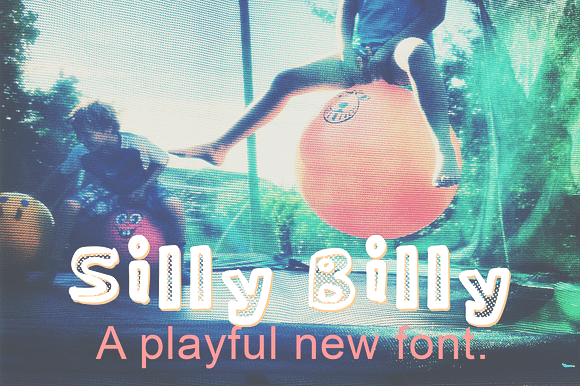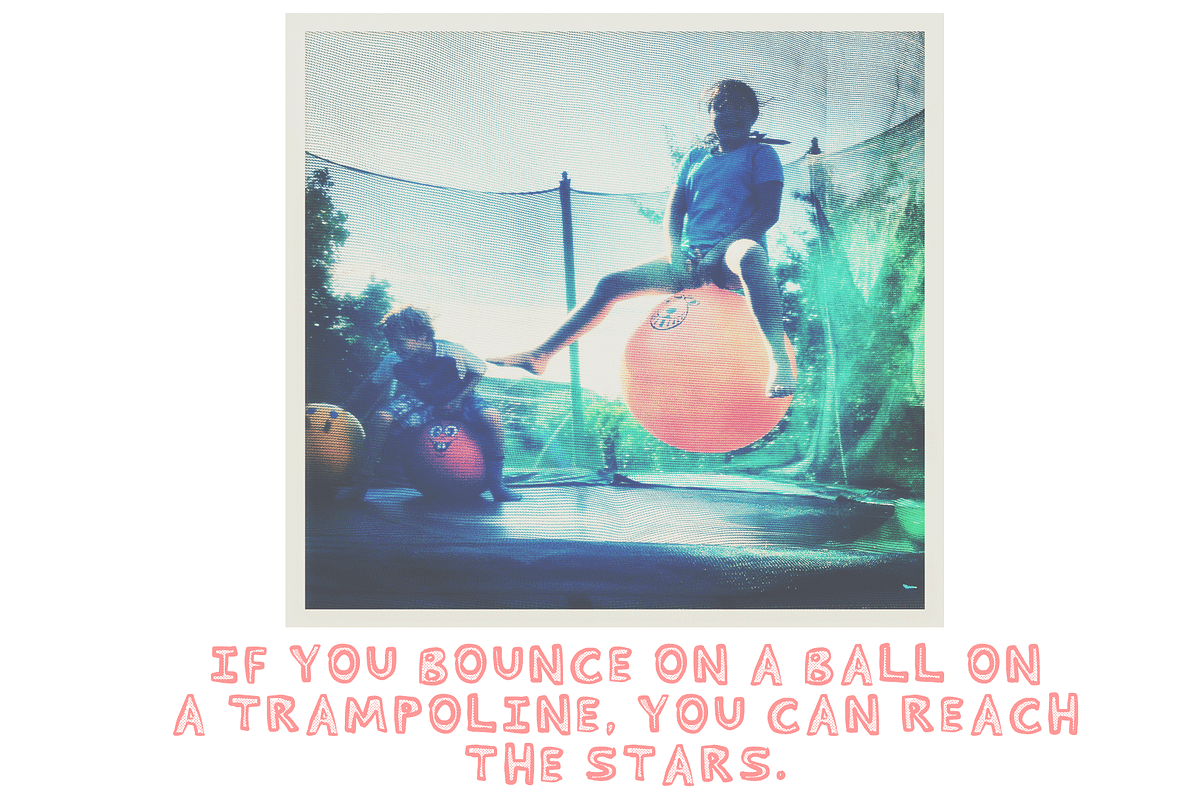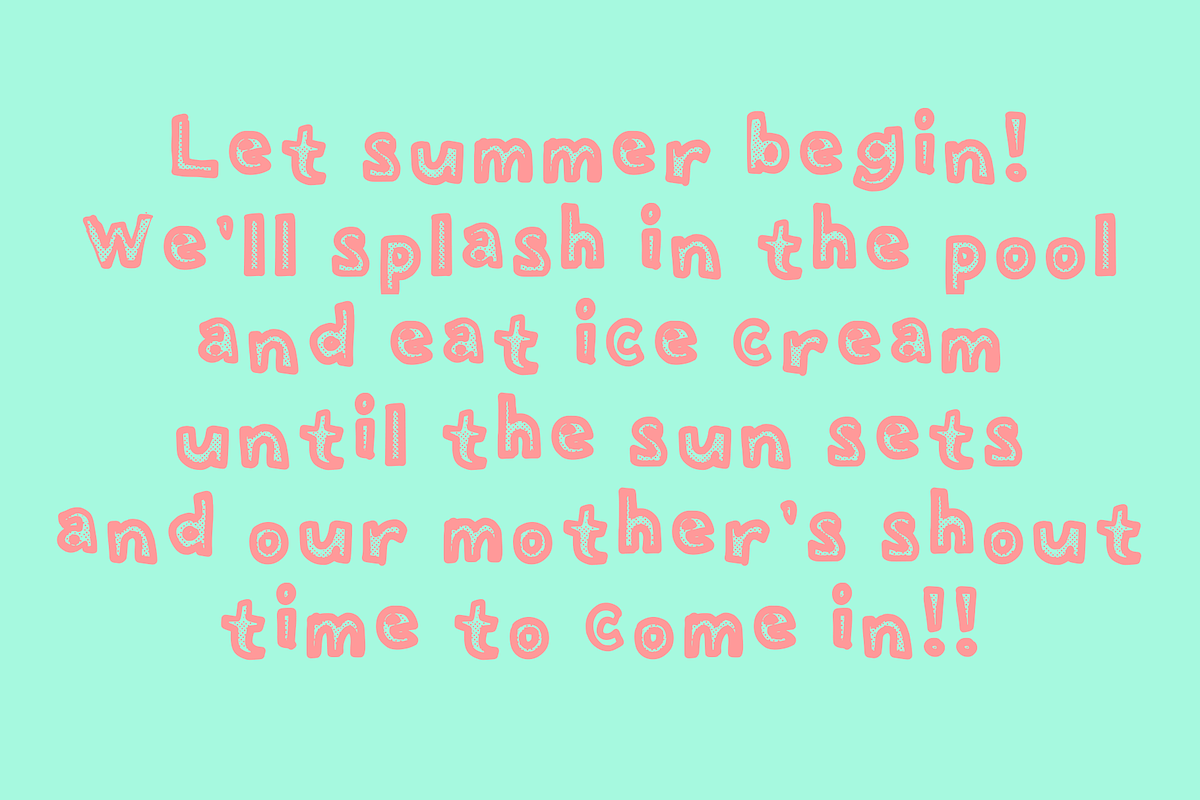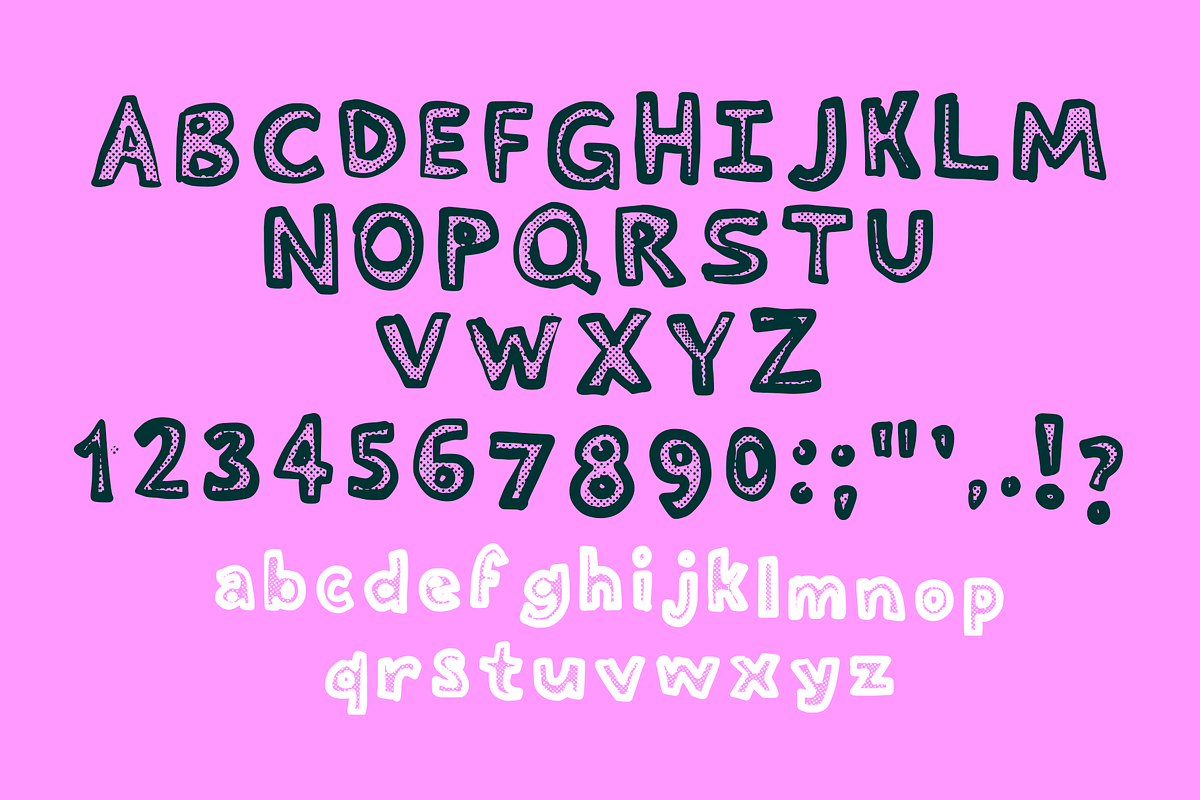
Silly Billy - A Fun Hand Font
At this time summer is fast approaching and so I wanted to try to create a font that is fun and playful and silly. All the best qualities of a child's summer!! When we'd bounce on the trampoline trying to reach the sky and stay outside until our mothers made us come in.
It 's a simple font in upper and lower case and it makes me happy, I hope it does you too.